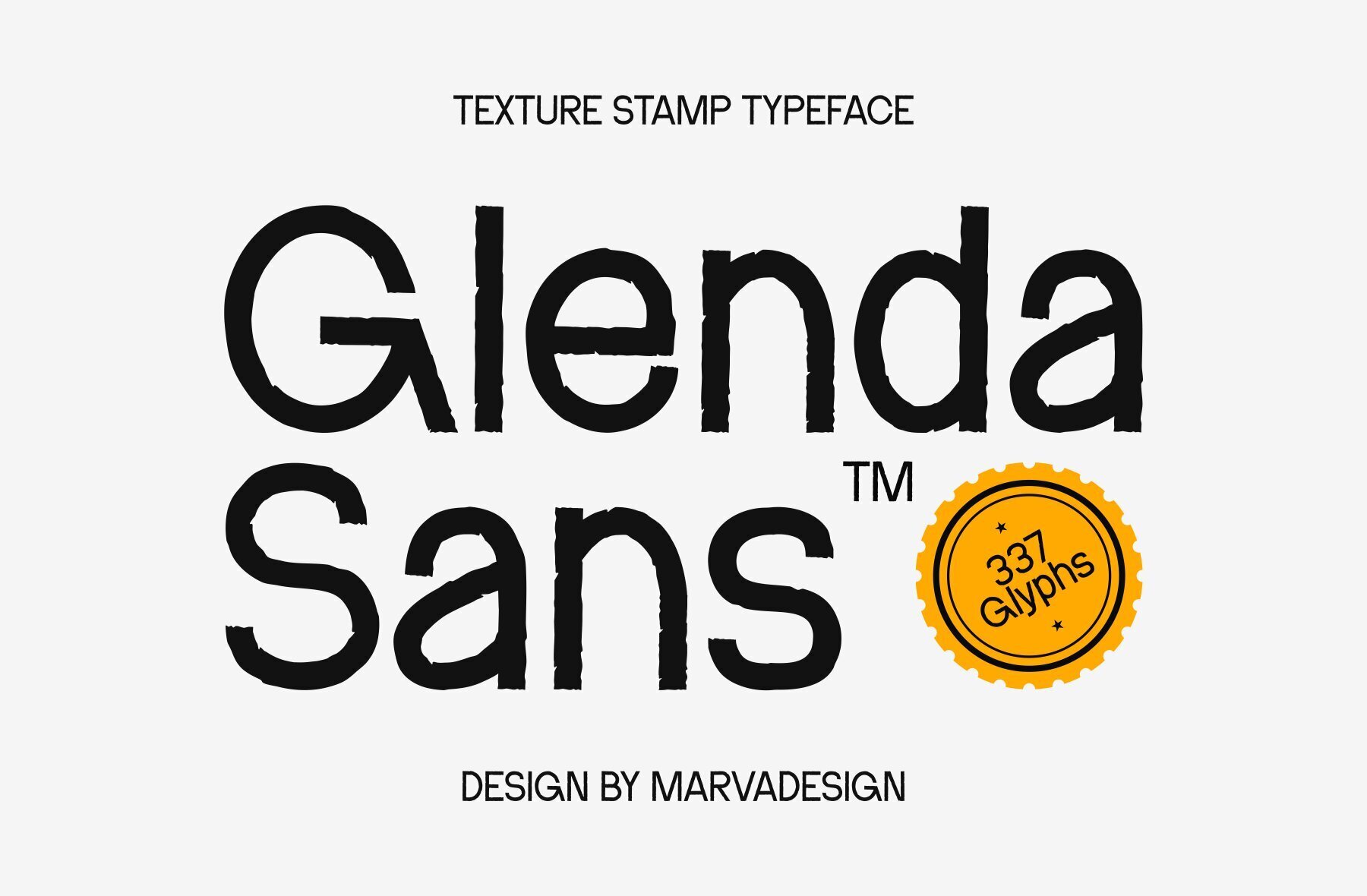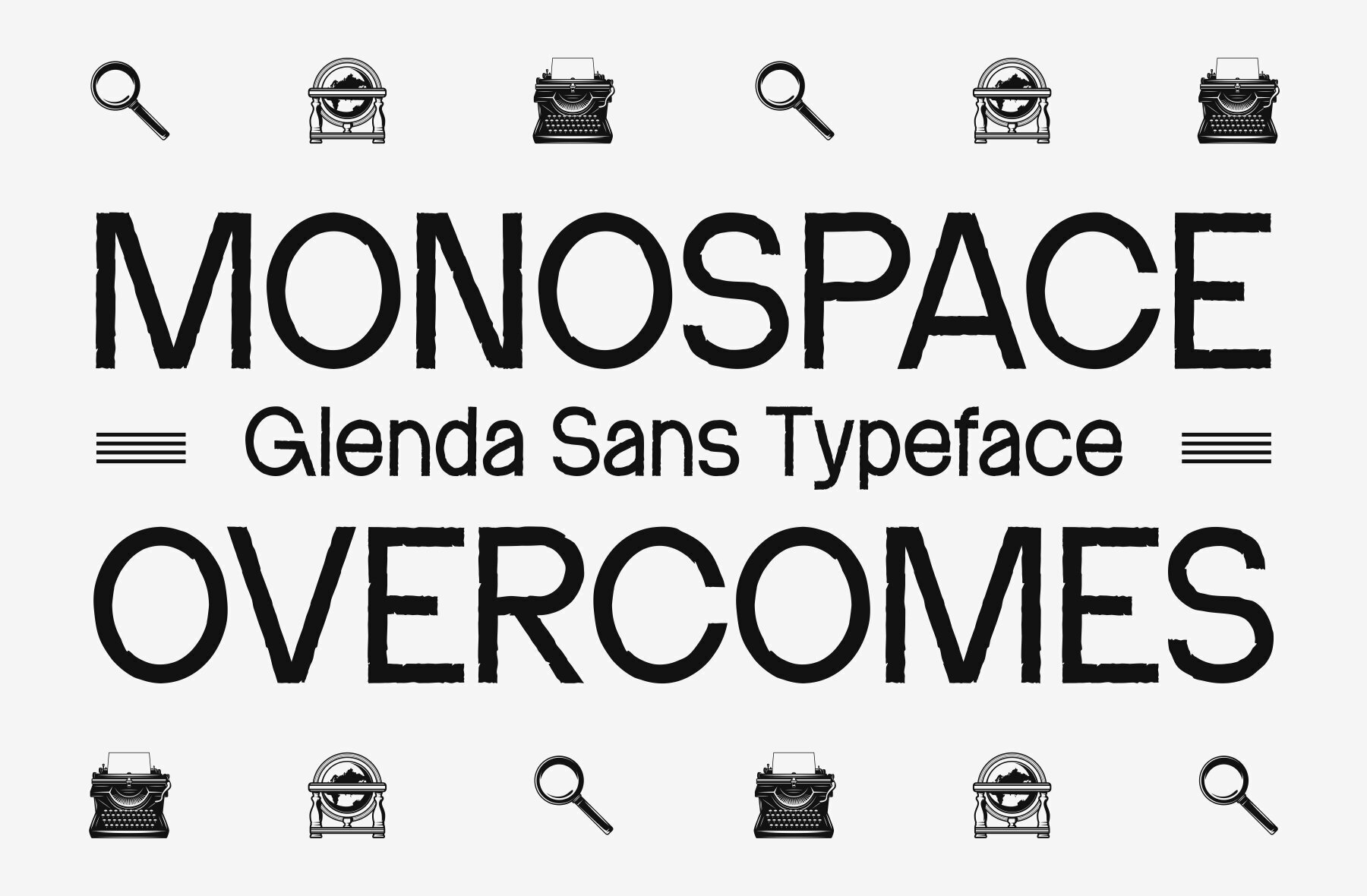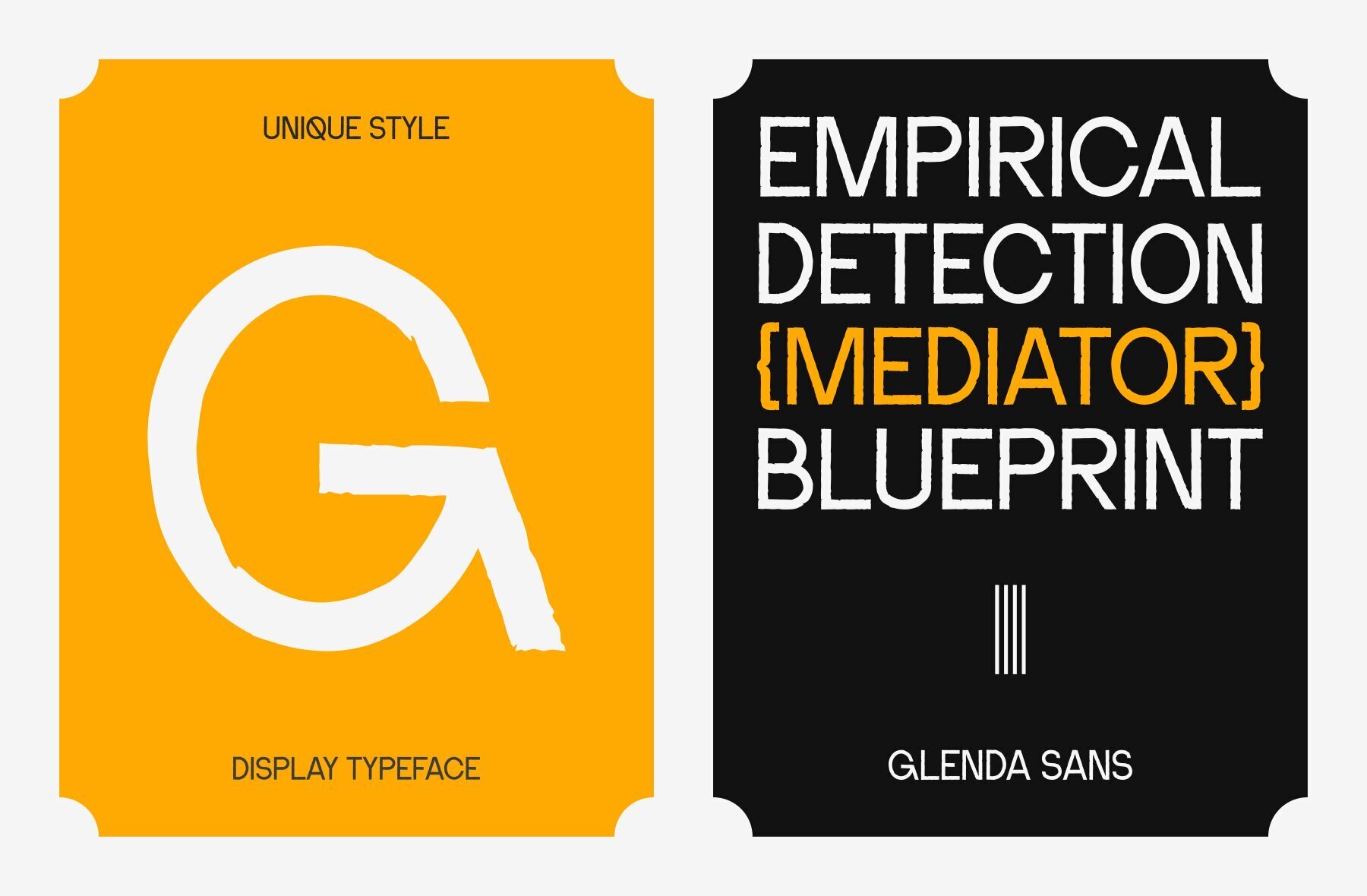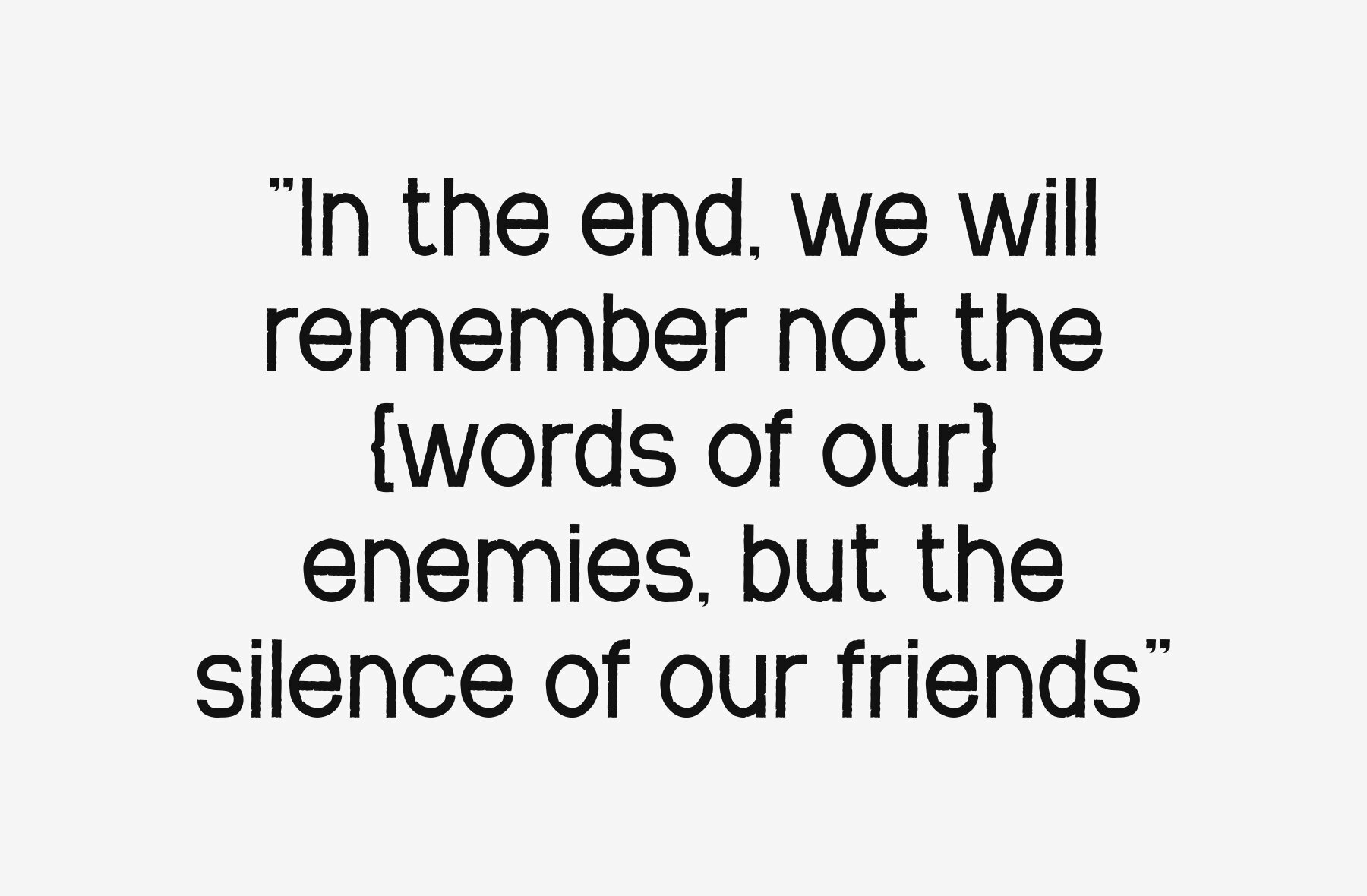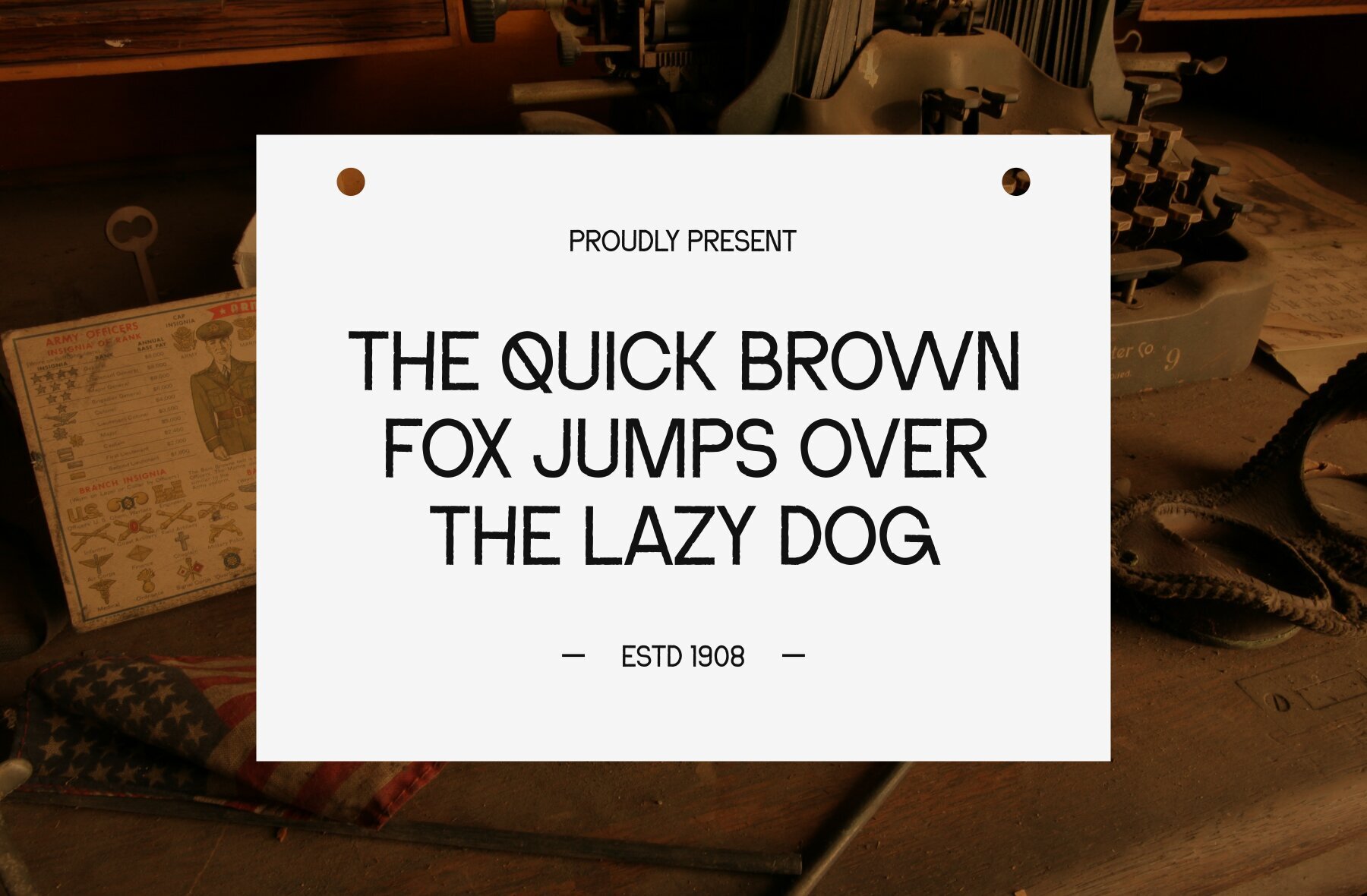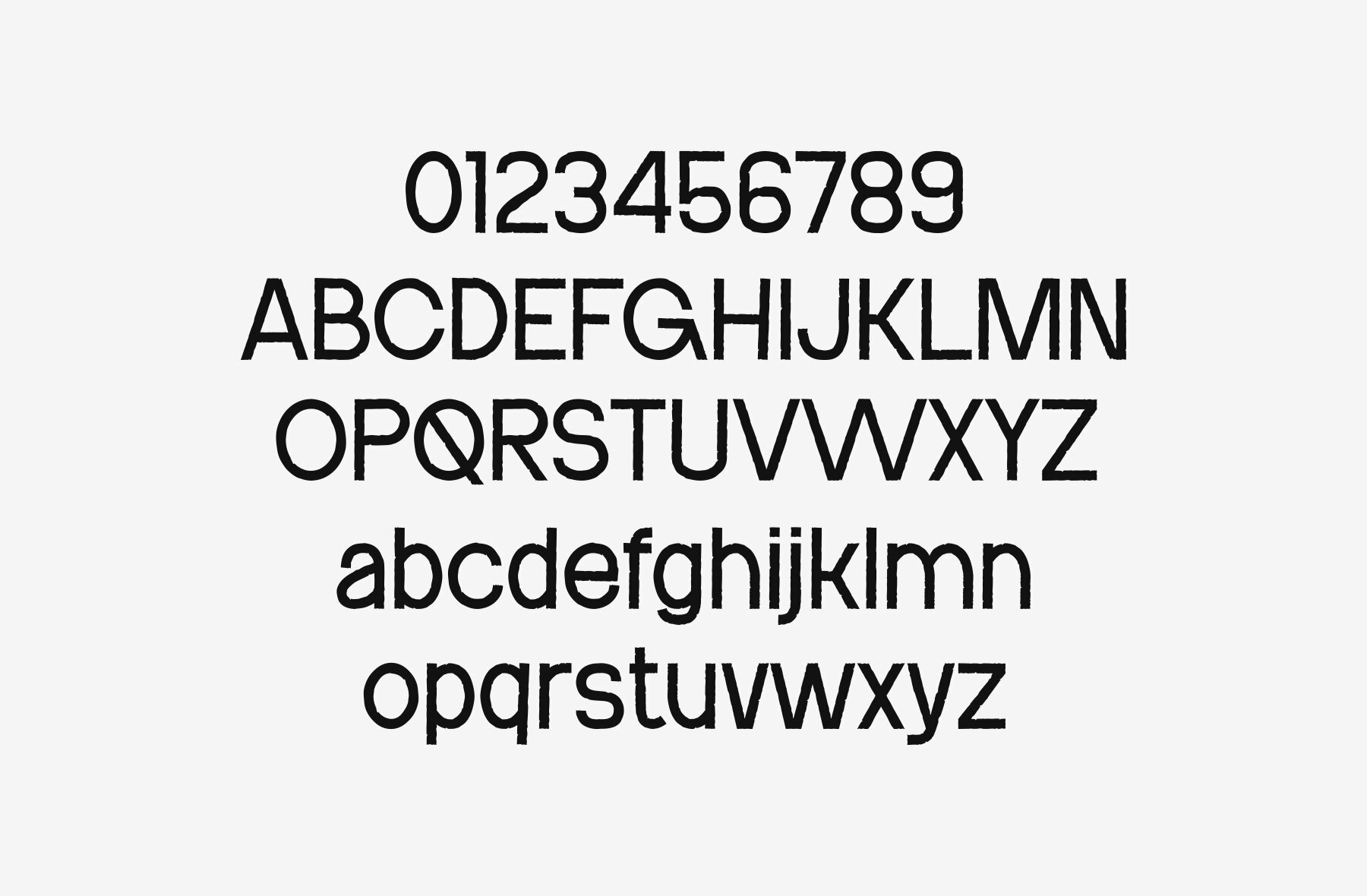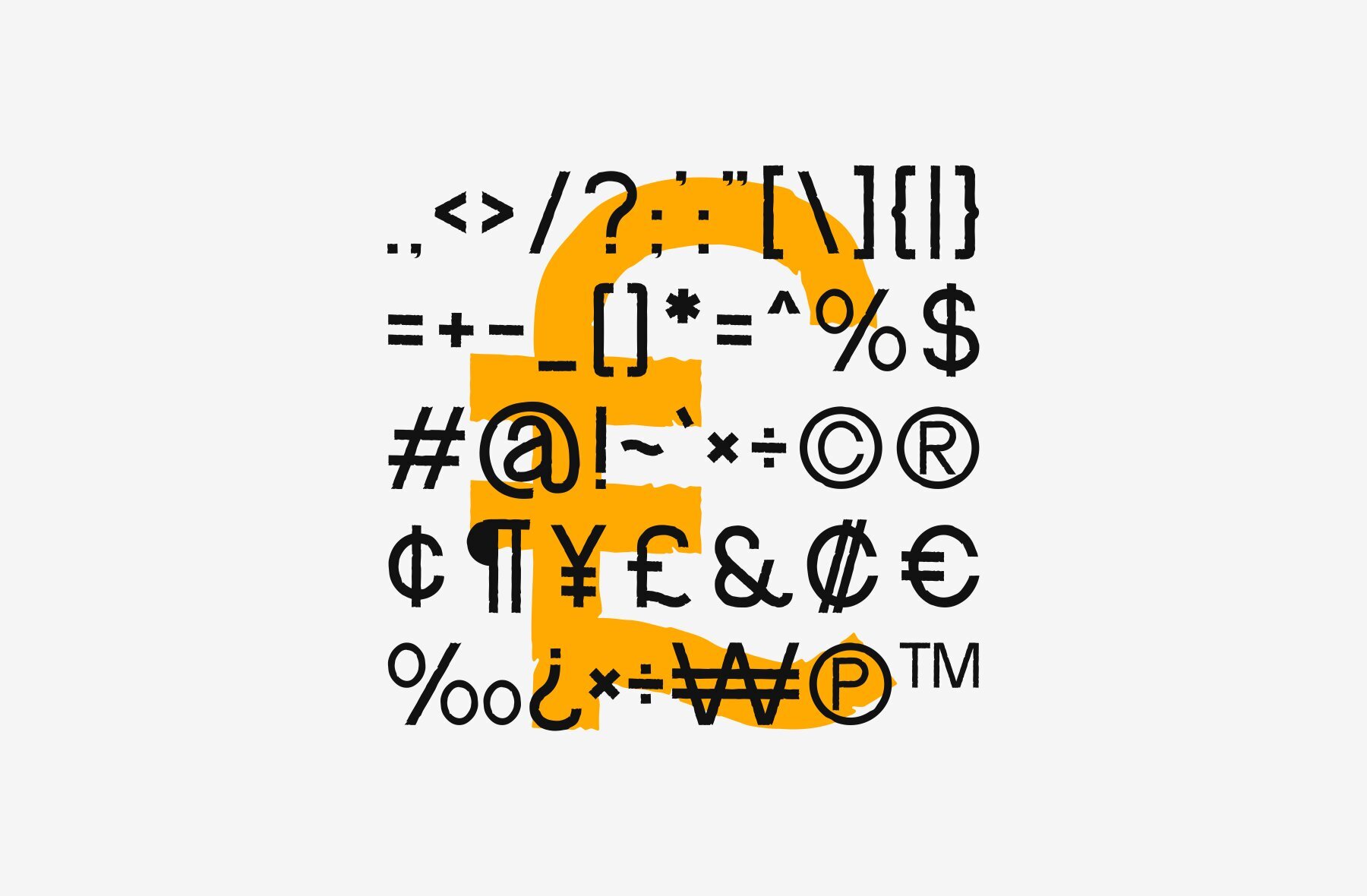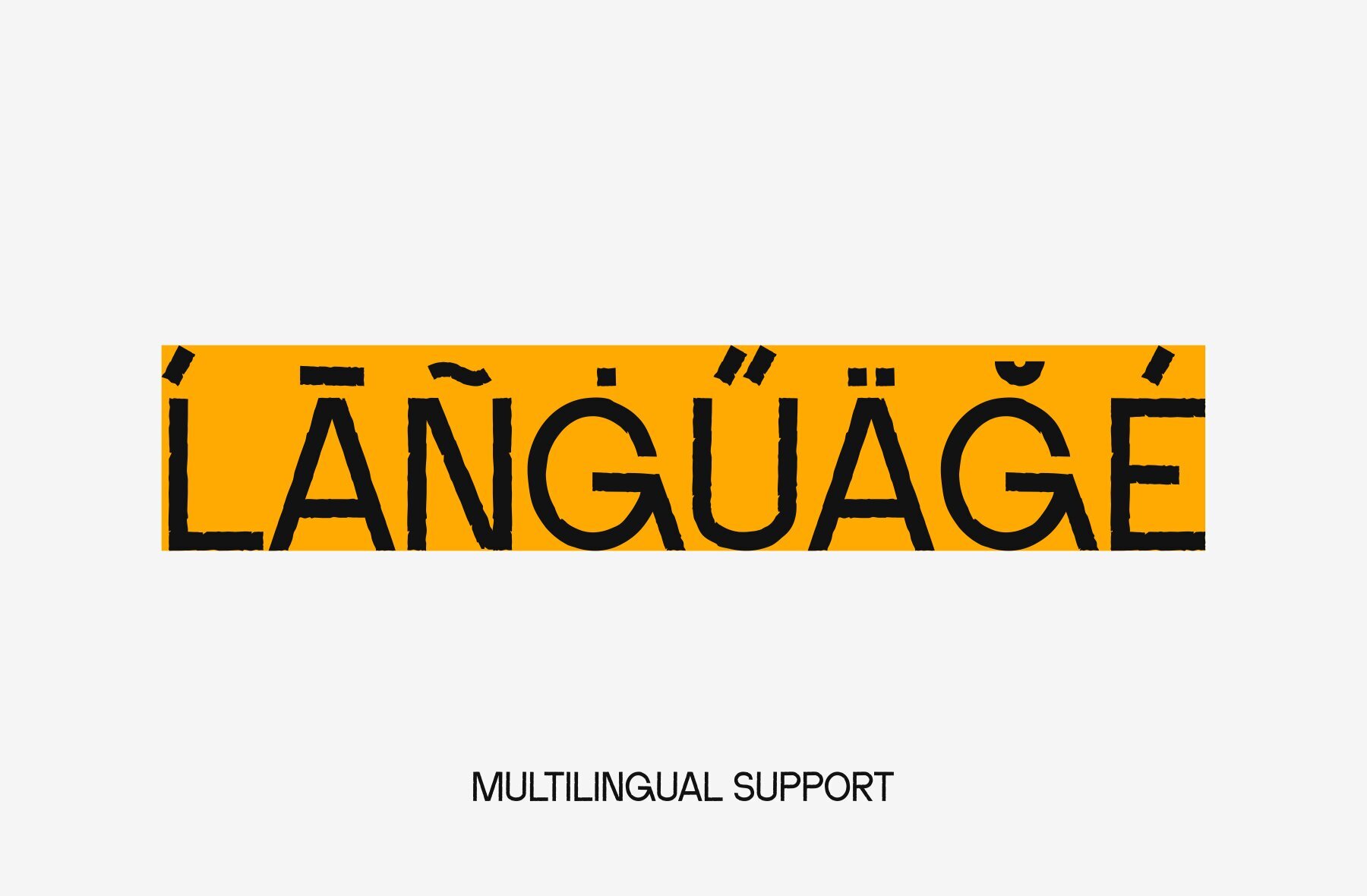
Glenda Sans Font
Glenda Sans
Introducing Glenda Sans is a textured stamp-style font that embodies a vintage and classic aesthetic. Its design features a weathered, hand-pressed look, reminiscent of old printing techniques. The font's uneven edges and subtle imperfections give it an authentic, worn appearance, making it ideal for projects that seek to evoke a sense of nostalgia or timeless elegance. The classic charm of Glenda Sans makes it suitable for a variety of creative uses, including branding, packaging, posters, and invitations where a touch of antiquity and character is desired.